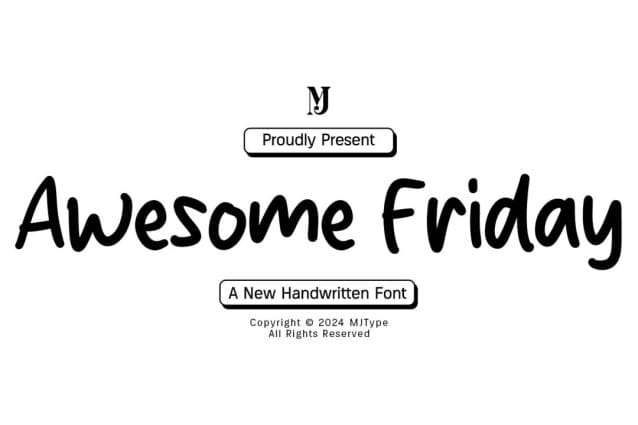
Awesome Friday Font
Awesome Friday Font is a sweet and simple handwritten font. Its natural and unique style makes it incredibly fitting to a large pool of designs. The only limit is your imagination!